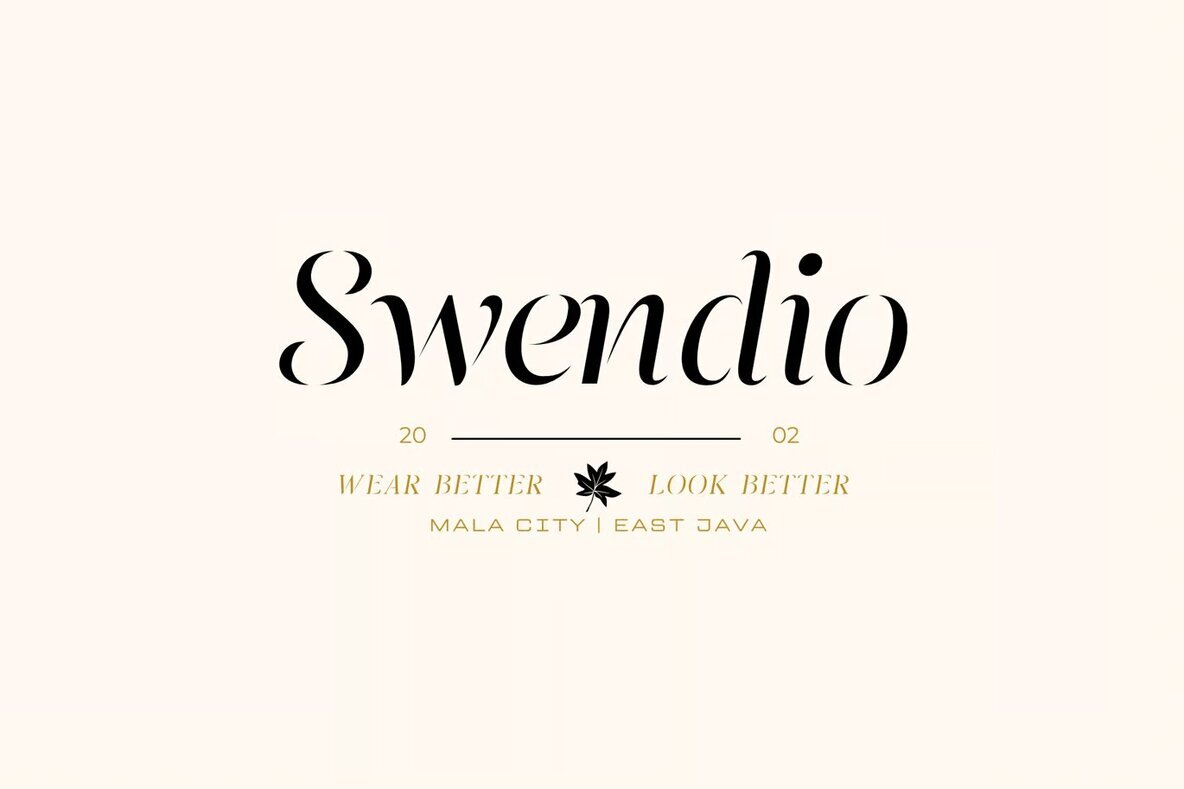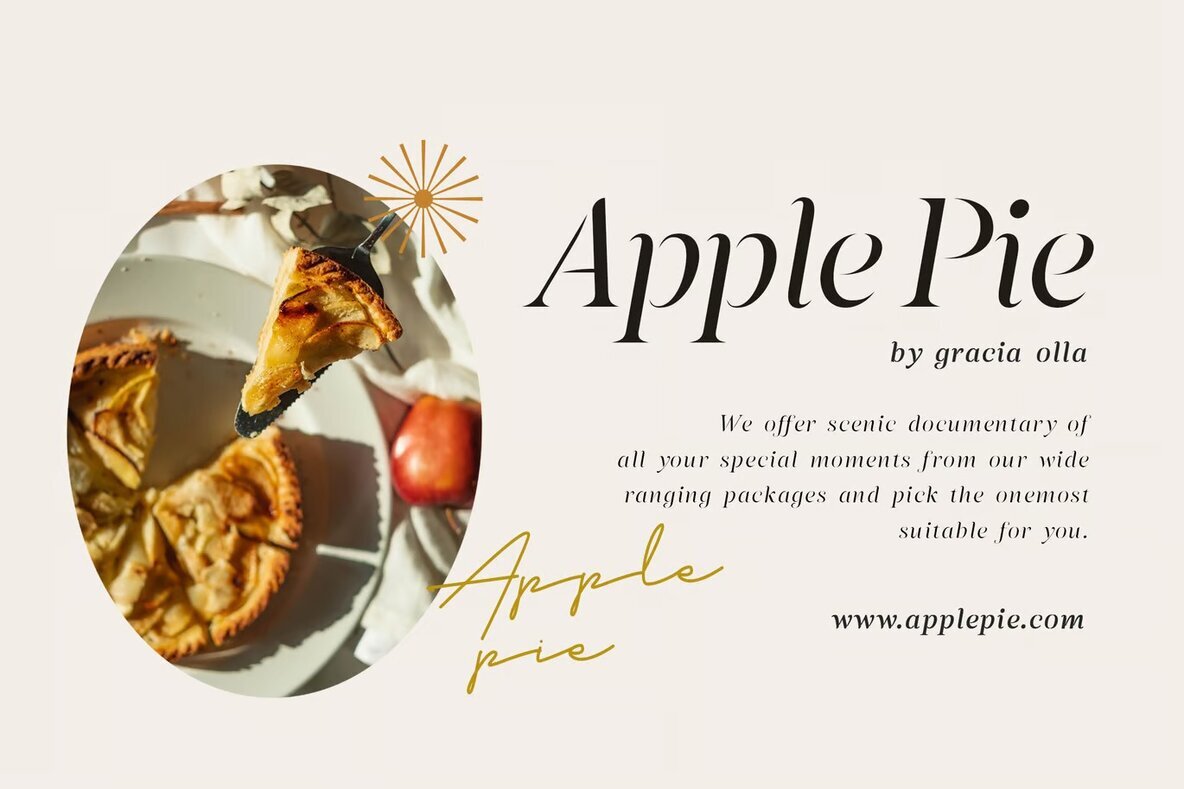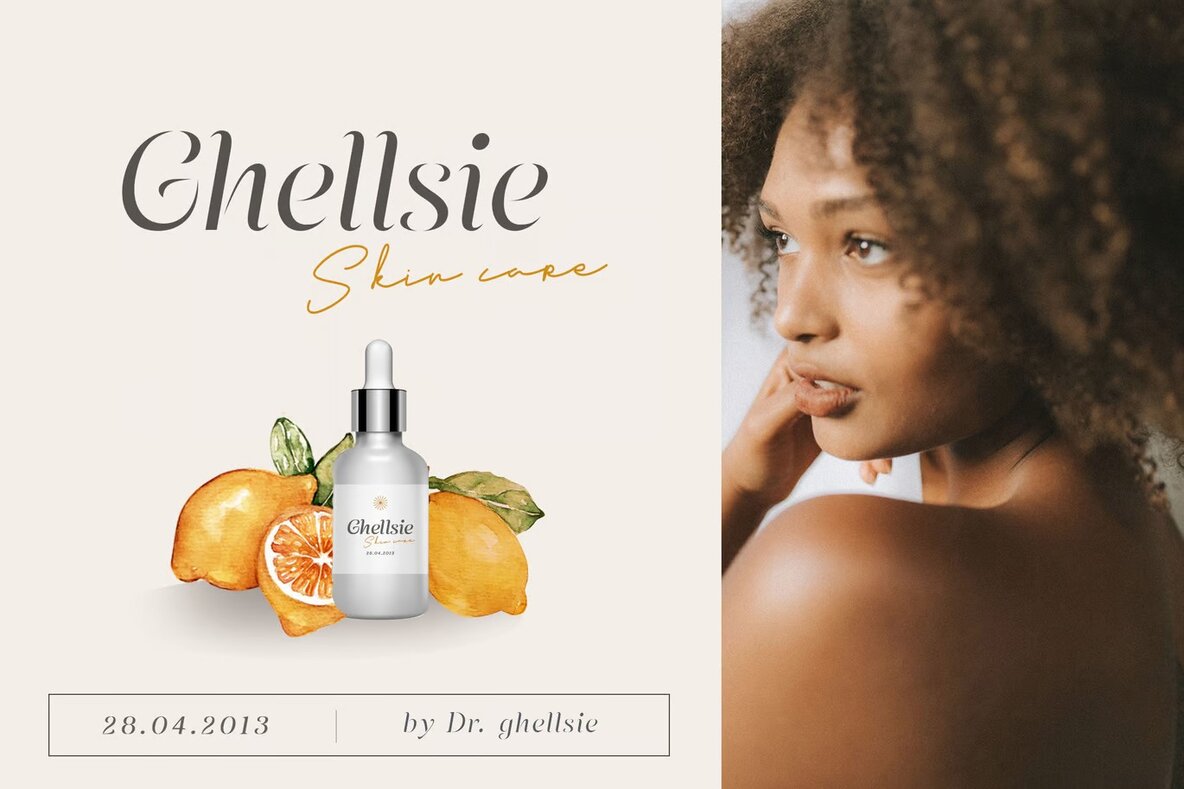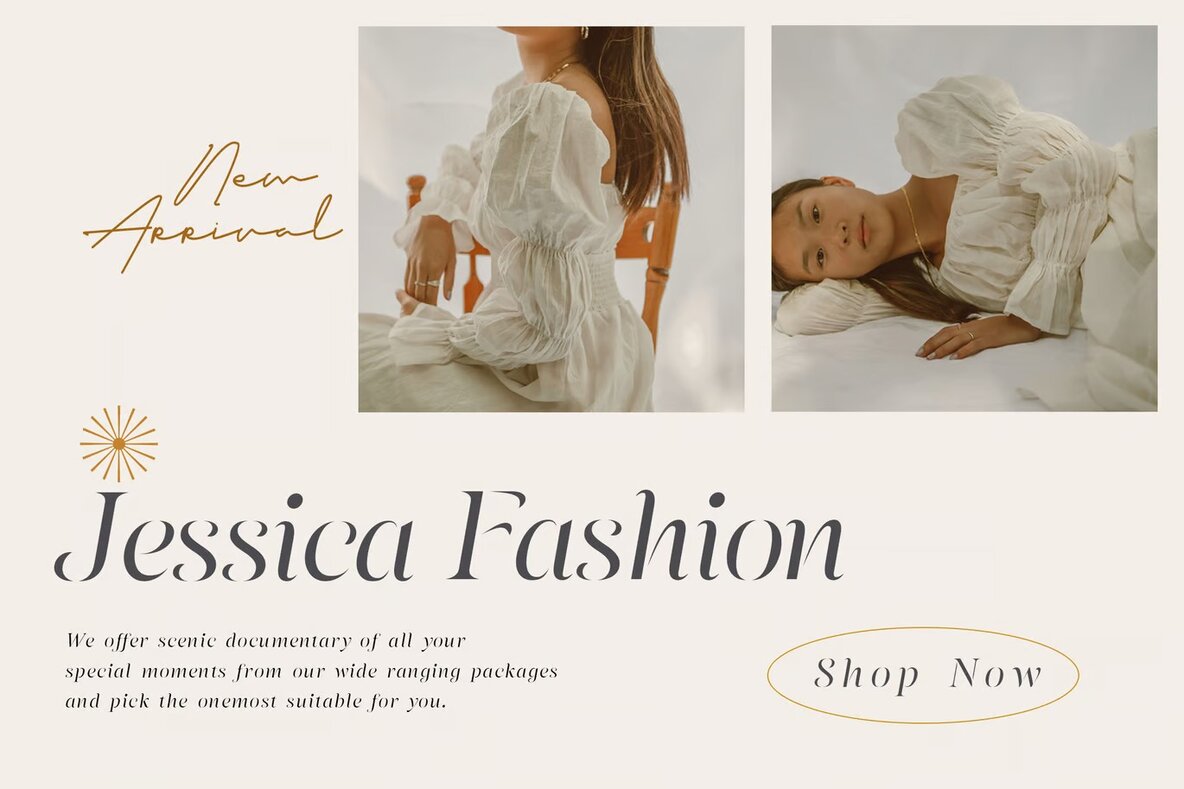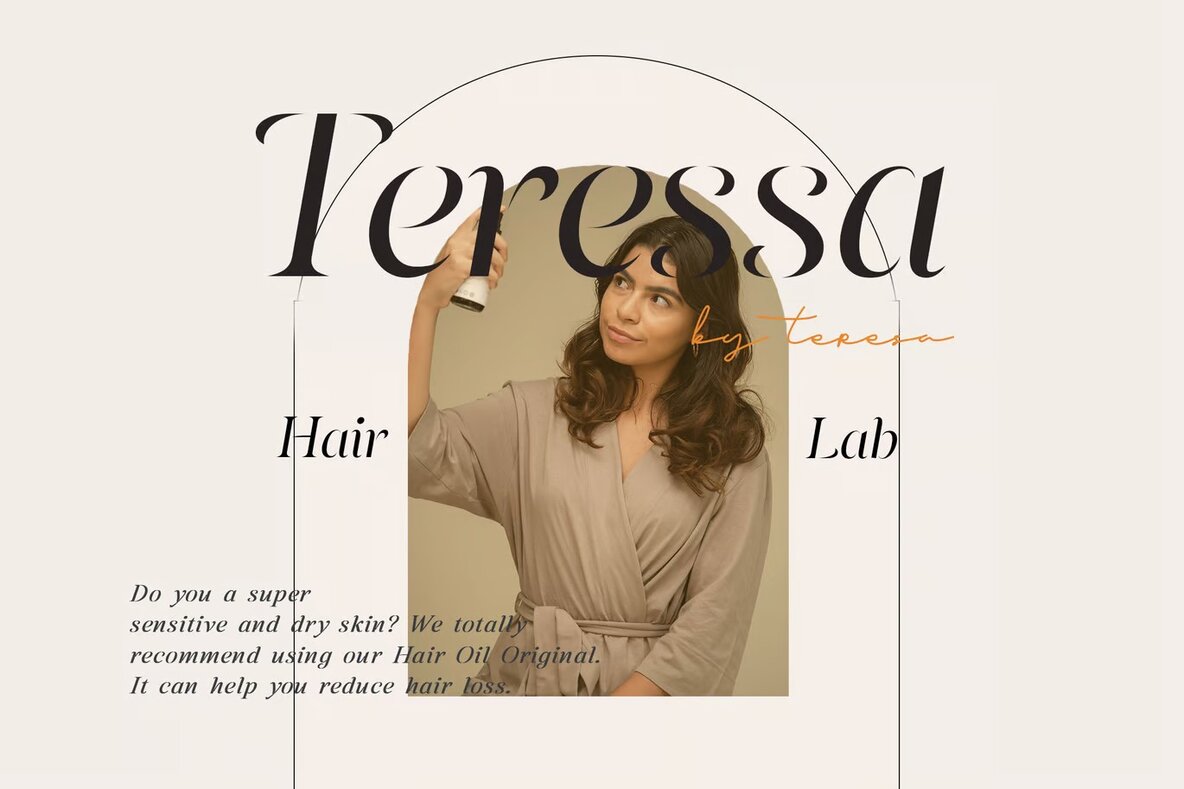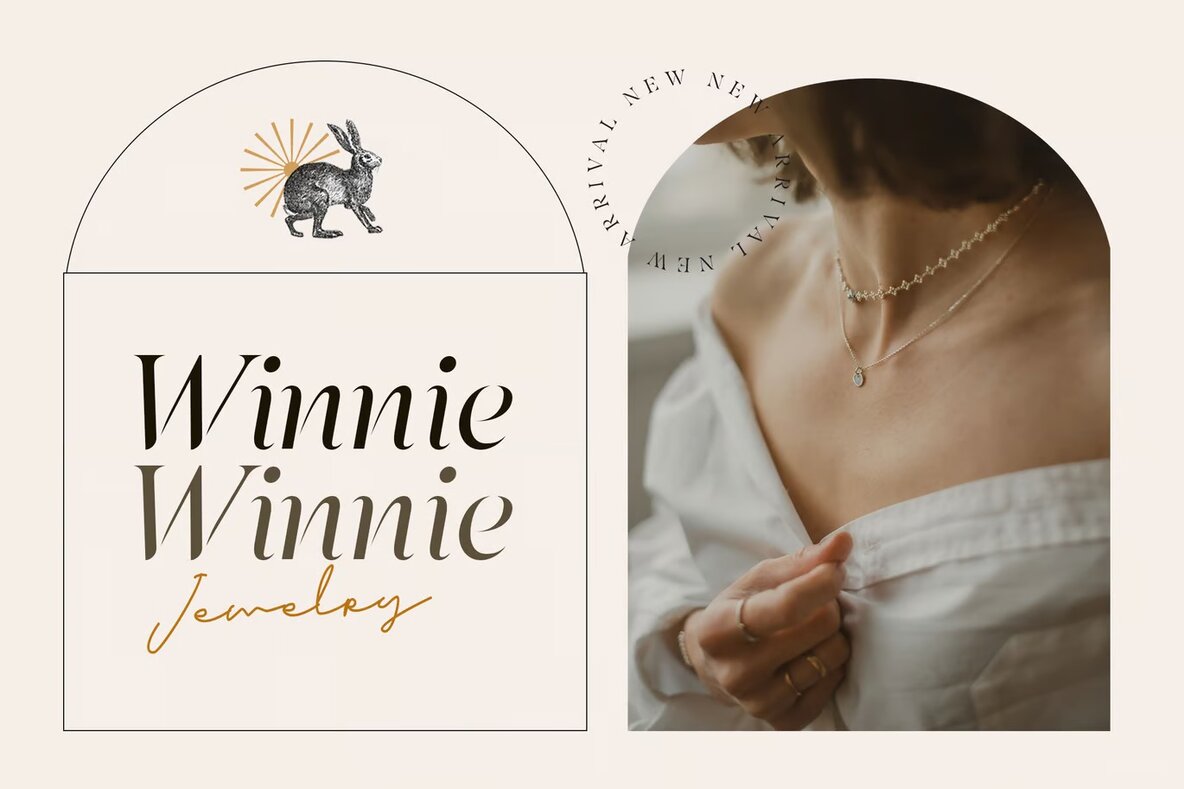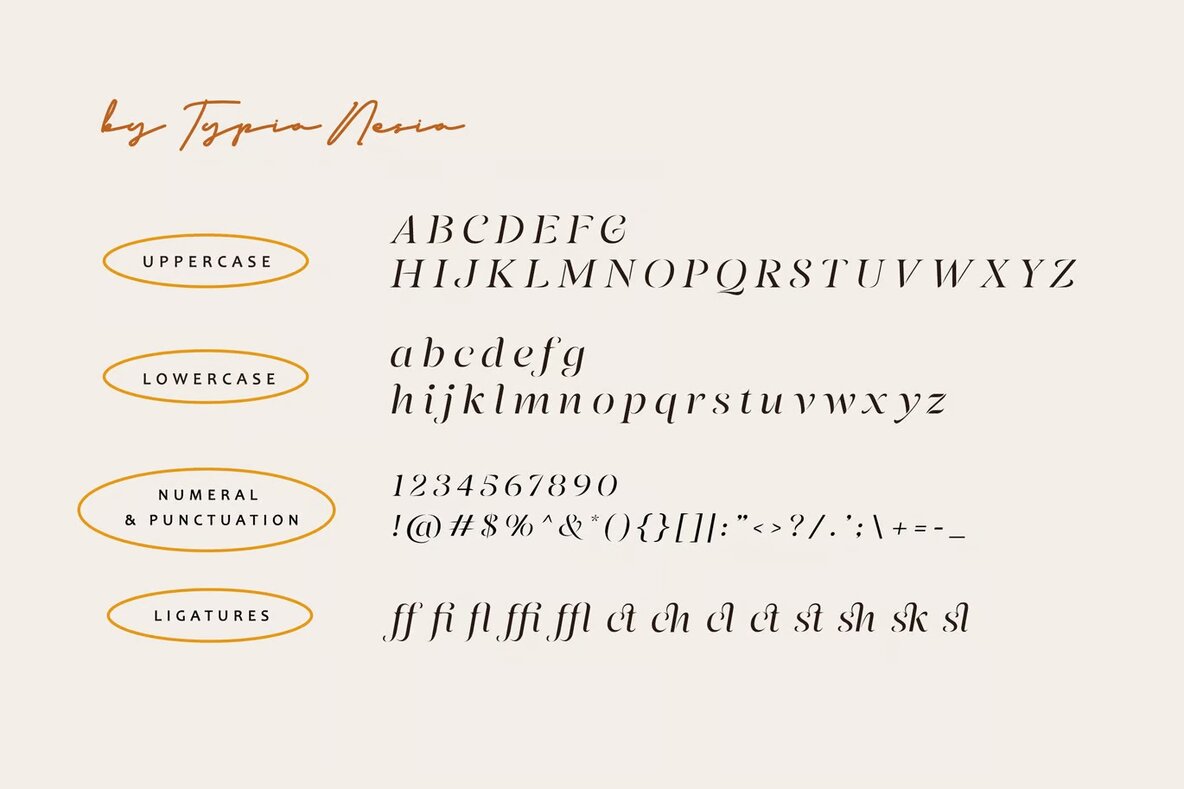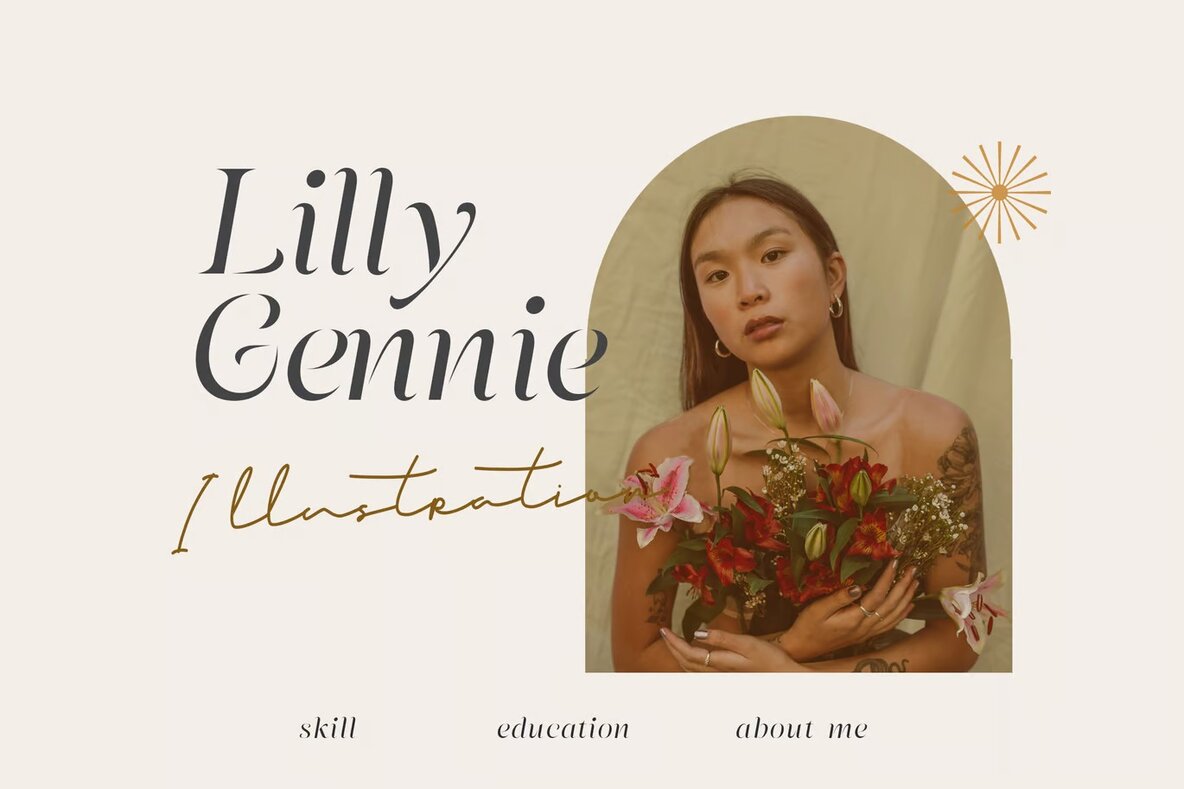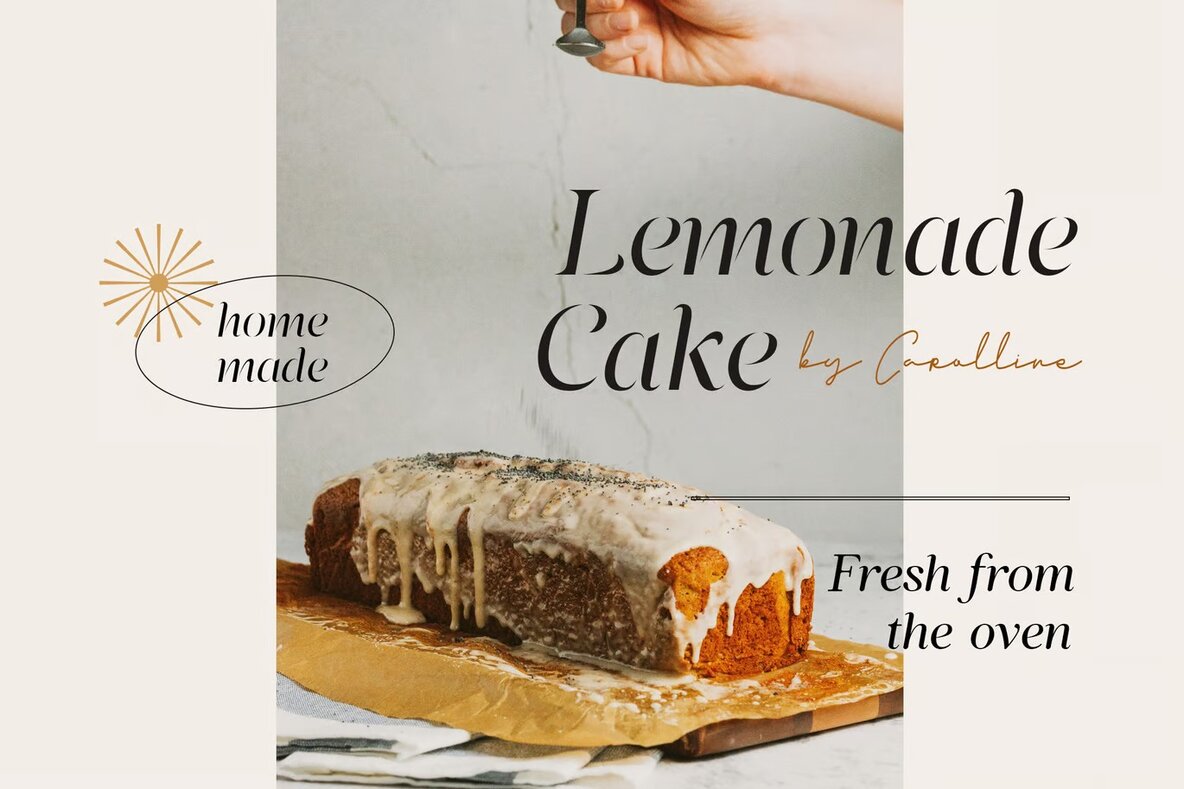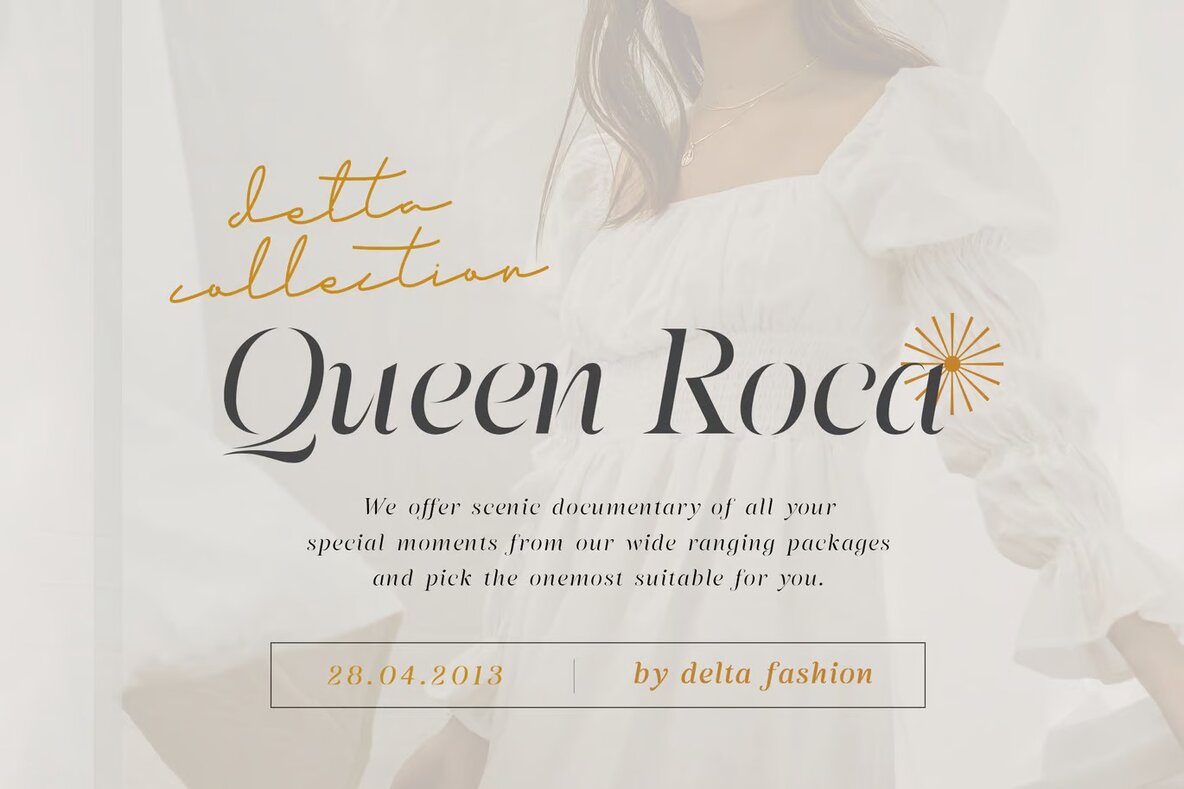
Quindove Font
Quindove Italic
Quindove is a sophisticated stencil italic serif font, designed to bring a touch of elegance to your creative projects. With its refined ligatures, Quindove allows for beautiful typographic combinations that enhance the sophistication of any design. Ideal for luxury logo creation, classy editorial layouts, and fashion promotions, this font can transform brand identities into something truly memorable. It's particularly suited for projects that demand a touch of elegance, such as architectural history explorations and high-end art gallery branding.
Perfect for a range of applications, Quindove excels in boutique branding, magazine layouts aimed at the modern woman, and cosmetic brand promotions. Its versatile design makes it a great choice for stationery, card invitations, blog layouts, and home decor projects. Whether you're working on book covers, art quotes, or special event materials, Quindove offers a sophisticated solution for any application that requires a classy yet creative touch.